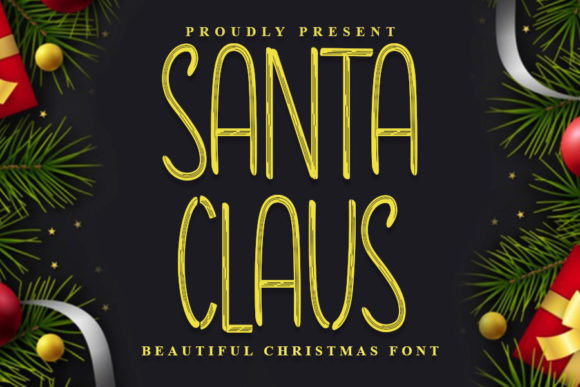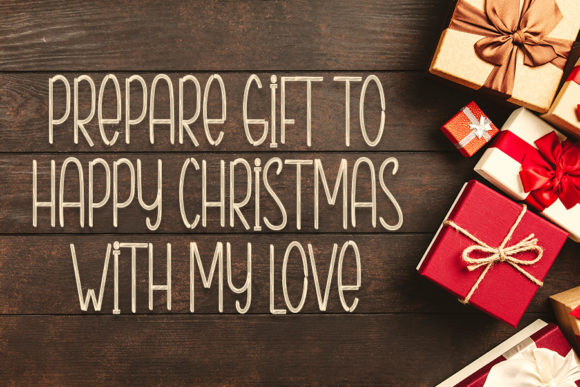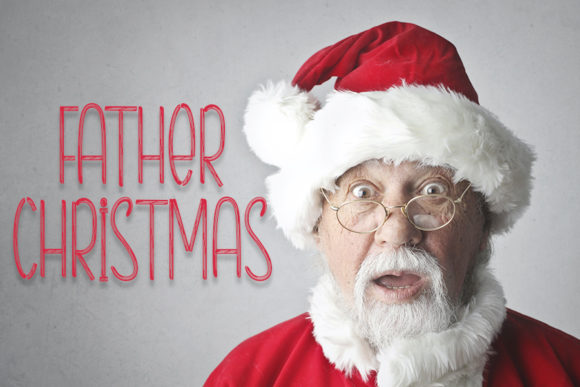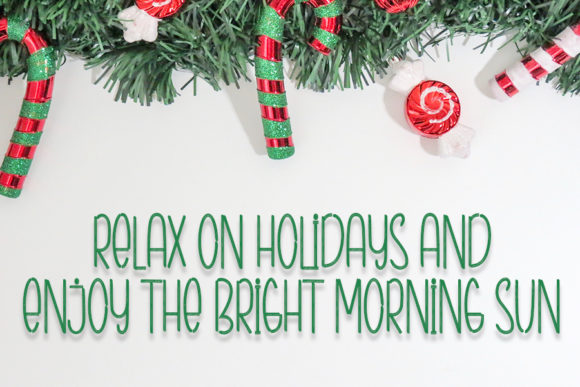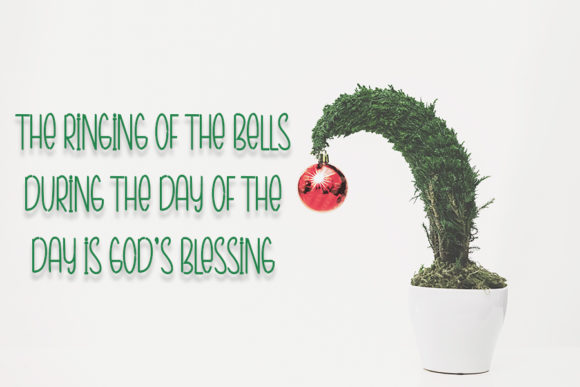
Santa Claus Font
About Santa Claus Font
Santa Claus is a thin and tall lettered handwritten font. it has a casual and friendly vibe and it is easily adaptable to any design requirements.